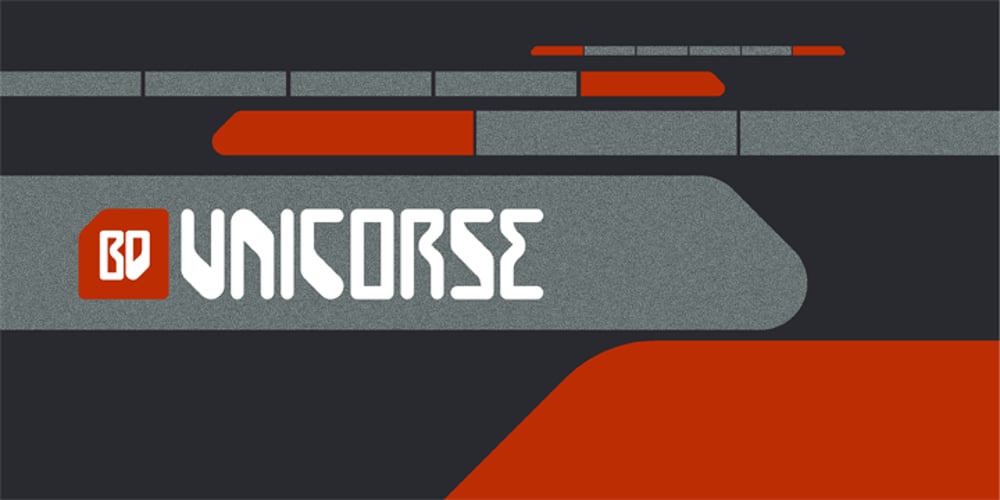
BD Unicorse Font Family was designed by Lorenz (Lopetz) Gianfreda and published by Typedifferent. BD Unicorse contains 1 styles and family package options. BD Unicorse is a retro futuristic mixed case display font with the main characters set on the small keys and alternatives on the capital characters. It features 12 ligatures and is great for the use as headlines in magazines, logotypes on posters, games, movies or music packaging.